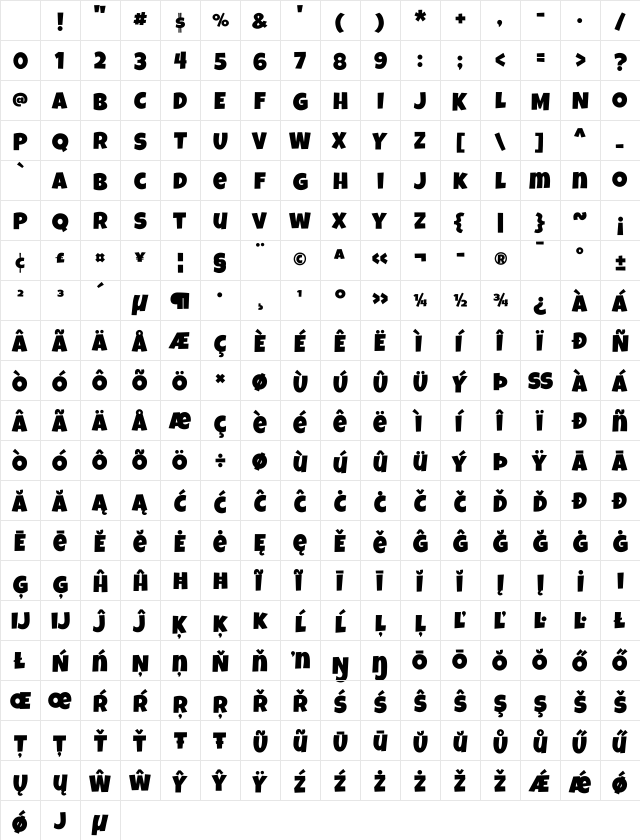
Luckiest Guy is a composed and adaptable typeface that performs quietly and consistently across a wide range of design contexts.
Pro Tip: Use Luckiest Guy in both headline and body roles to test its range before committing to a single application.